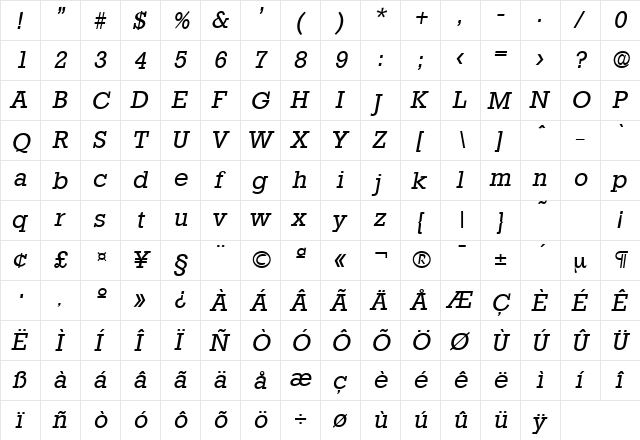
Stafford-Serial RegularItalic
Design Context for Stafford-Serial Typeface
Stafford-Serial takes a measured approach to typography — its balanced proportions and neutral character make it a reliable workhorse for both digital and print work. The dynamic lean of this cut emphasises speed and emphasis in any layout.
Pro Tip: Use Stafford-Serial for emphasis, pull quotes, and subheadings where its slanted energy can add rhythm to the layout.